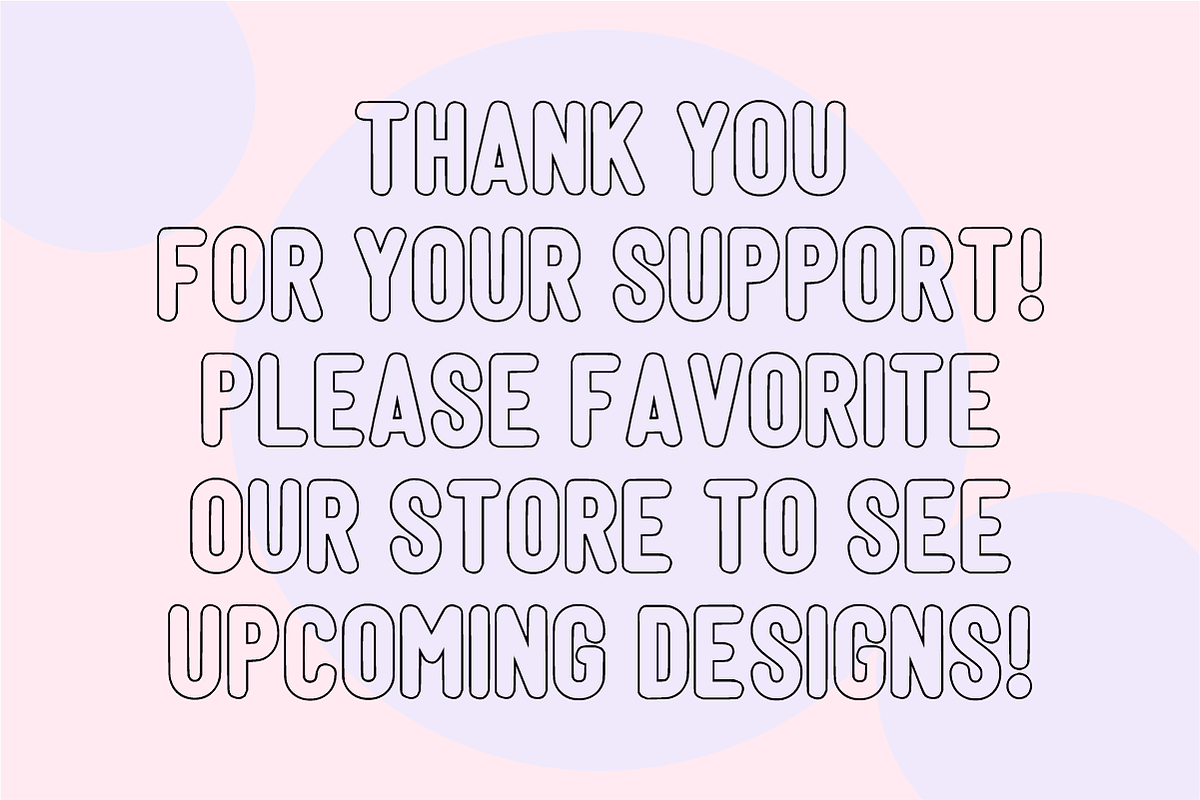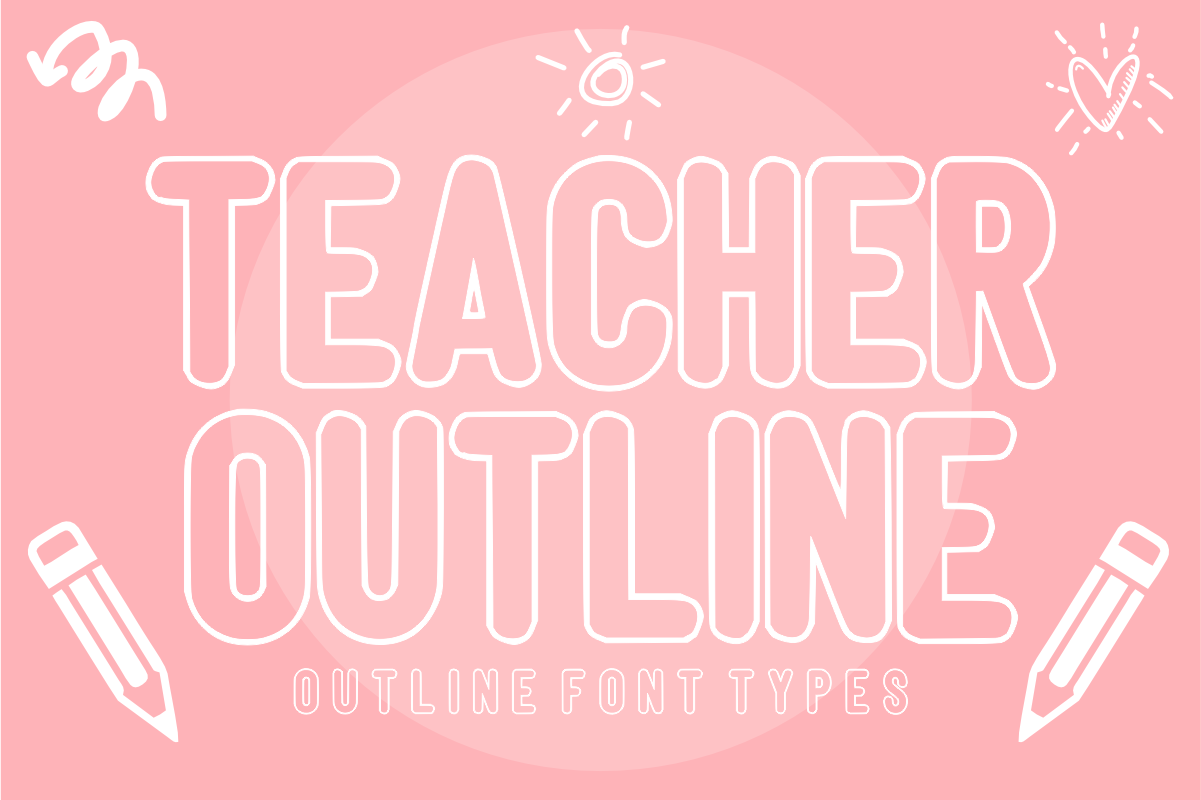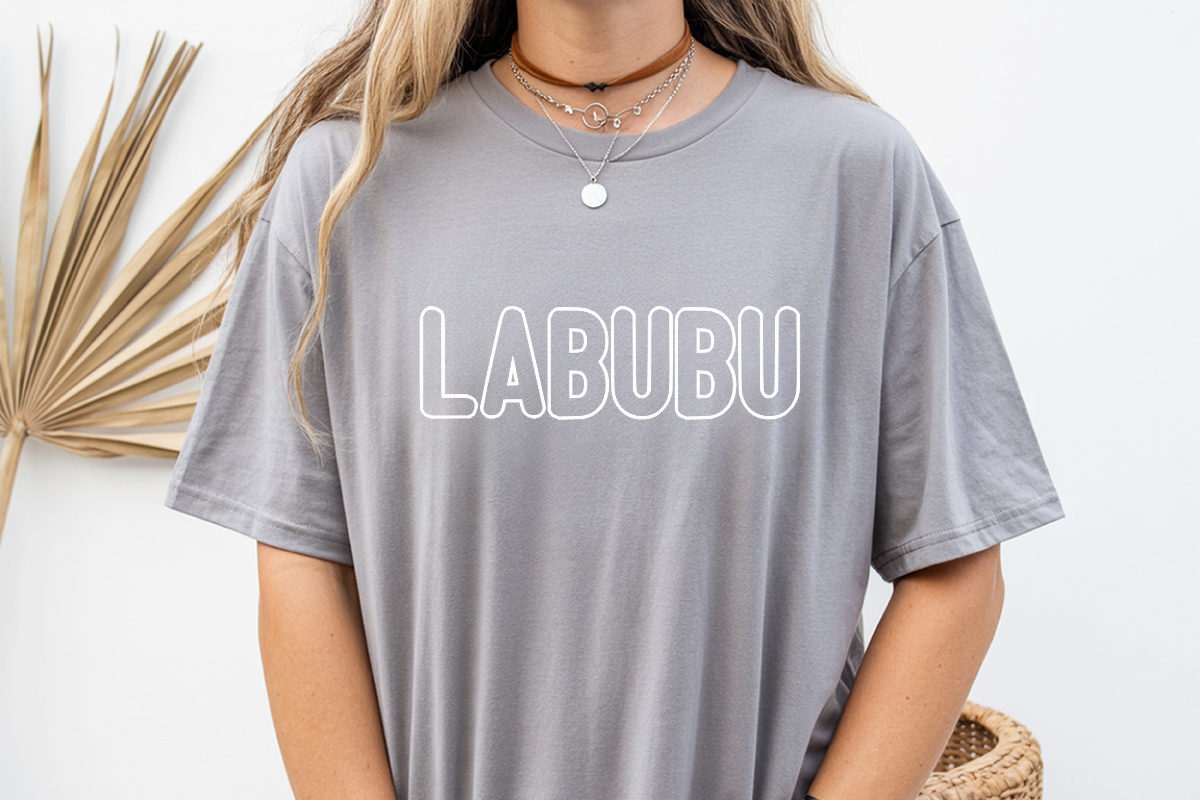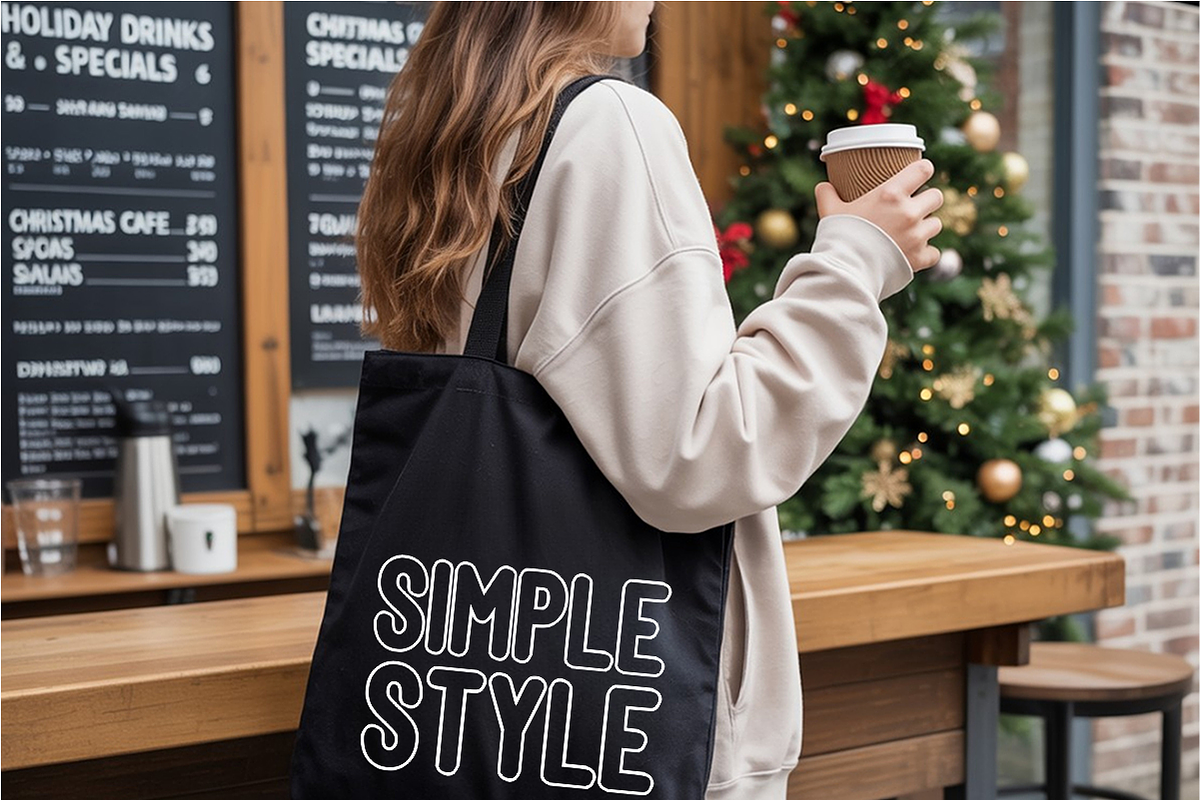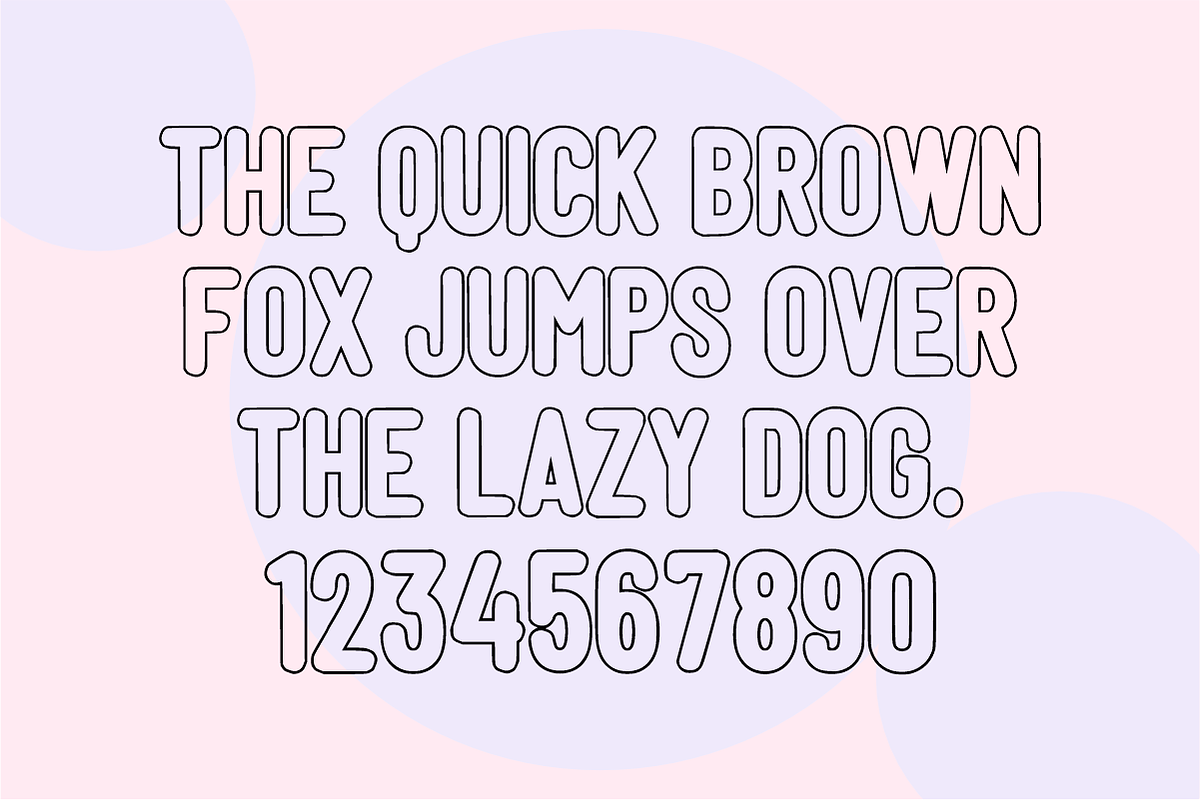
Teacher Outline - Cute Teacher Font
Teacher Outline is a cute, tall outline display font featuring clean, rounded hollow letterforms designed for educators, crafters, and creative makers. Perfect for classroom coloring pages, student activity sheets, teacher appreciation gifts, and DIY craft projects, this charming font adds a light, playful outline style to any layout. Every character is cleanly vectorized to guarantee high-resolution prints and smooth, effortless cutting on Cricut and Silhouette machines.
Uppercase Character Set
Numbers & Basic Punctuation
Ideal For:
Teachers Pay Teachers (TpT) authors creating student coloring worksheets, alphabet flashcards, classroom signs, and activity books
Cricut, Silhouette, and HTV vinyl cutting projects for teacher t-shirts, tote bags, pencil pouches, and classroom decor
Etsy sellers designing custom back-to-school gifts, teacher stickers, school planners, and printable stationery
Print-on-Demand (POD) products, children's coloring books, school supplies, and custom educational merchandise
Canva template creators making class newsletters, teacher flyers, and educational social media graphics
Custom die-cut sticker packs, planner decals, and digital scrapbooking layouts